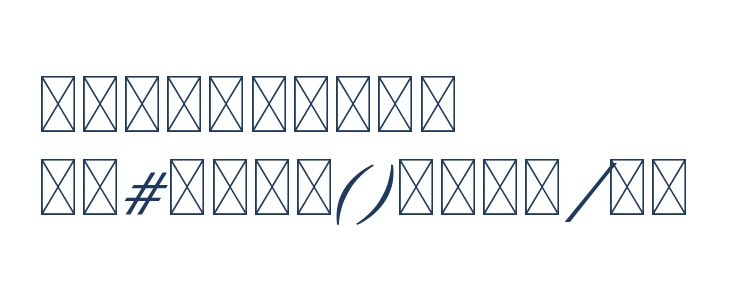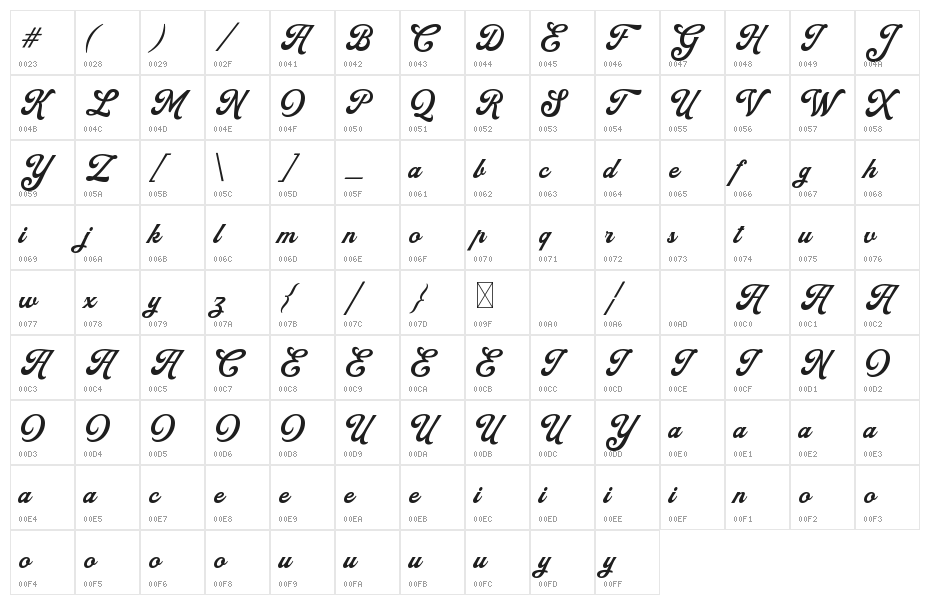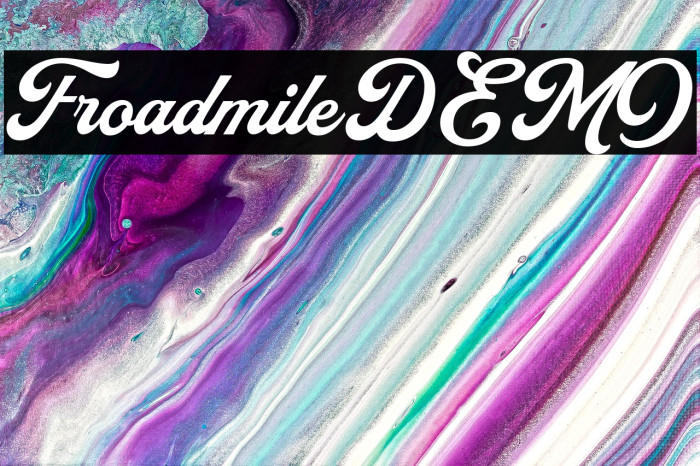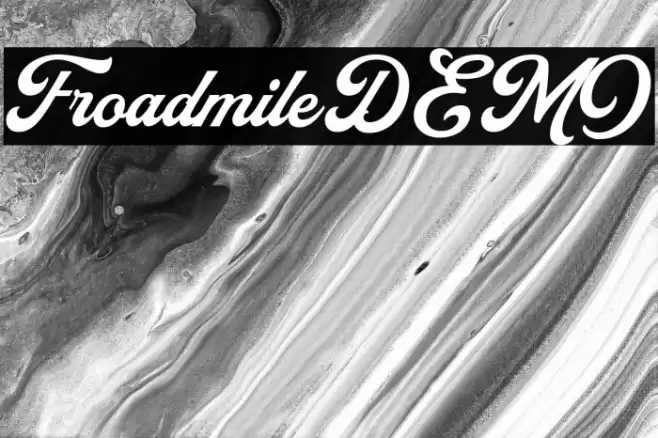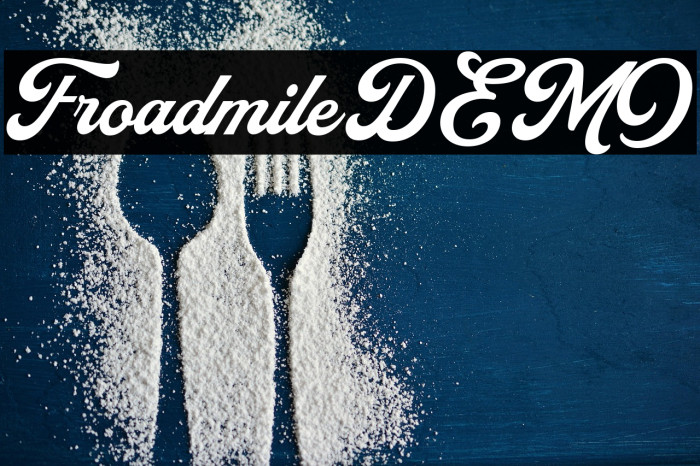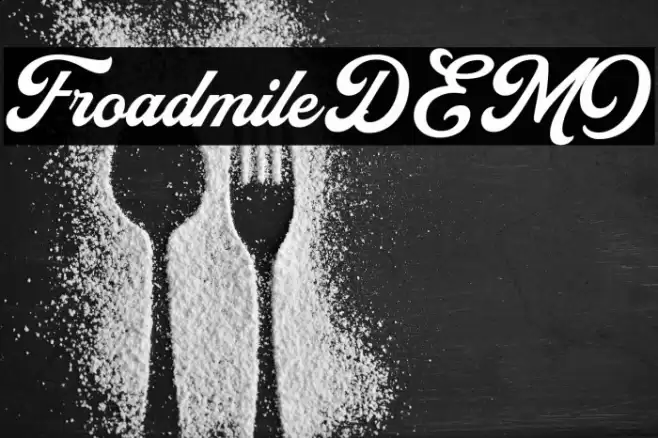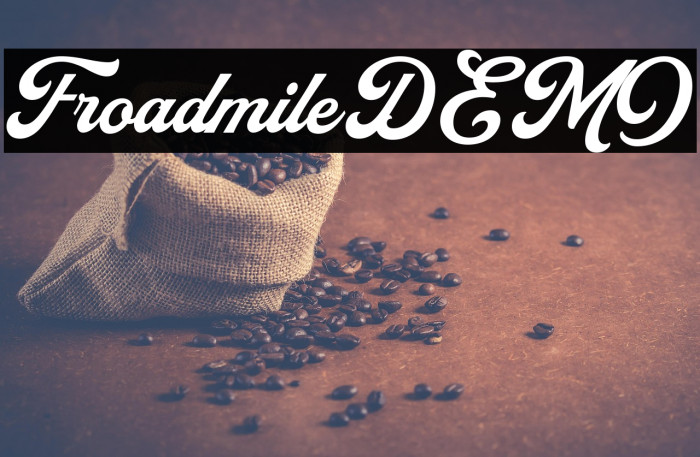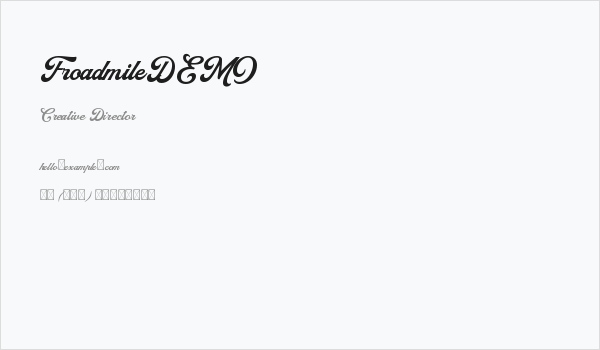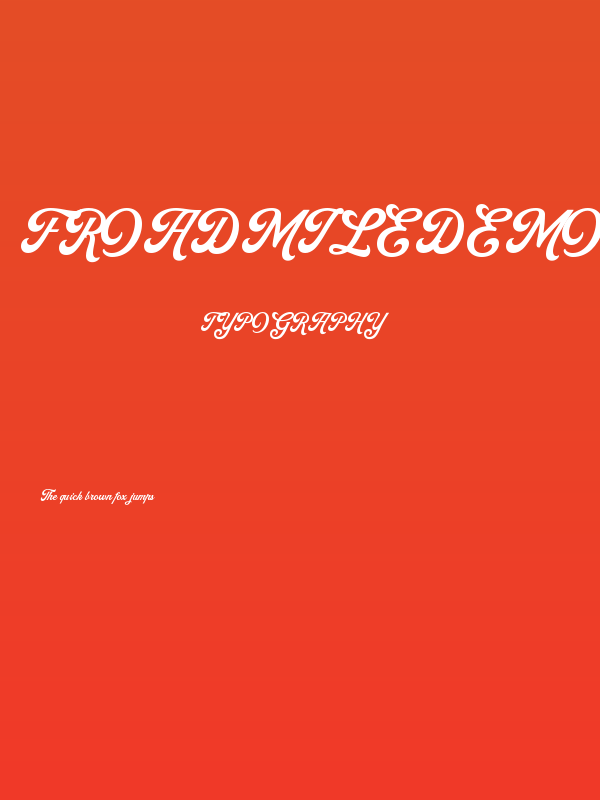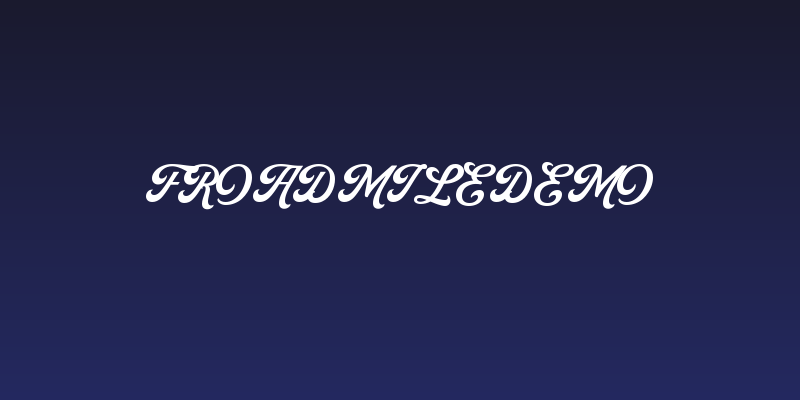
FroadmileDEMO Font
FroadmileDEMO Description
This font exhibits a classic script style with elegant, flowing curves and a sense of movement. The uppercase letters are bold and ornate, featuring intricate loops and swashes that give them a decorative flair. The lowercase letters maintain a cohesive style, with smooth connections between characters, enhancing readability while preserving the font's artistic nature. The numerals and special characters are designed to match the overall aesthetic, ensuring consistency across all elements. This font's bold strokes and high contrast make it stand out, ideal for creating a sophisticated and stylish impression.